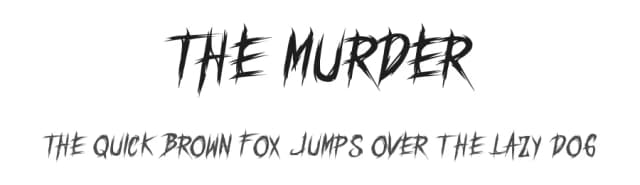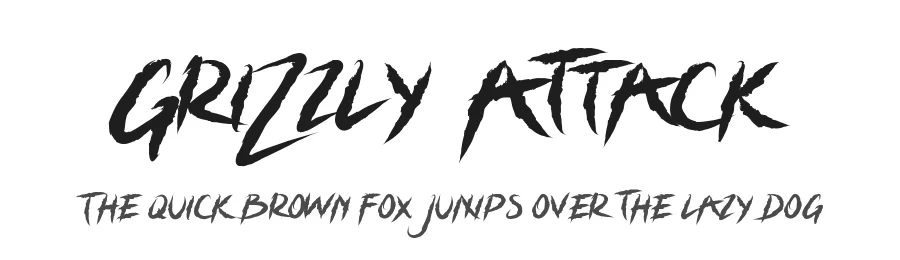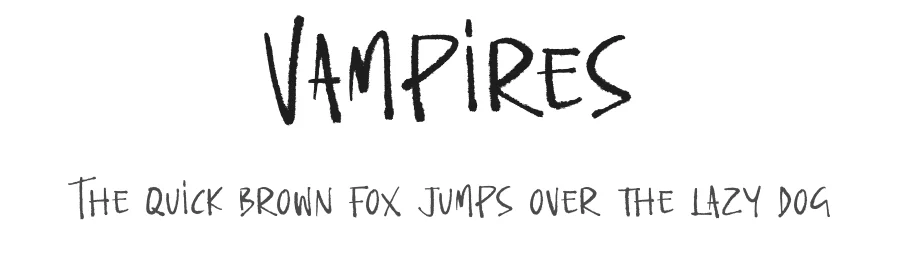
About Freedoomed Font
Font:Freedoomed
Type: Hand Created Brush
- Special hand created brush fonts
- Perfect for lifestyle needs and product branding
- Available in uppercase and lowercase
Freedoomed Font is a script font that shines as a display or heading face. Pair it with a clean sans-serif or serif font for body text β the contrast creates a clear hierarchy while the two styles stay balanced and easy to read.